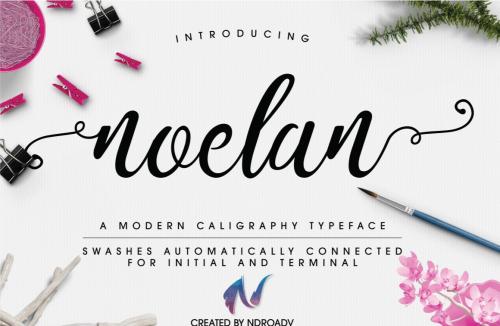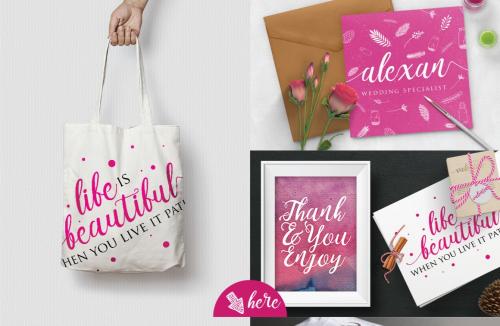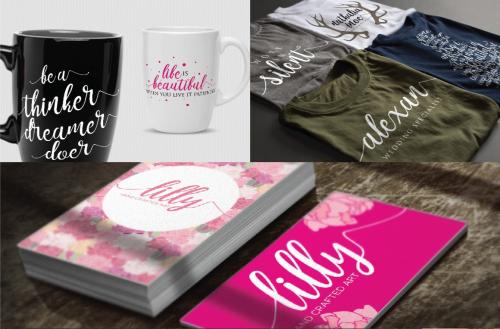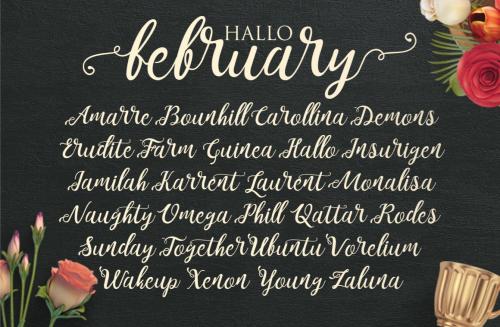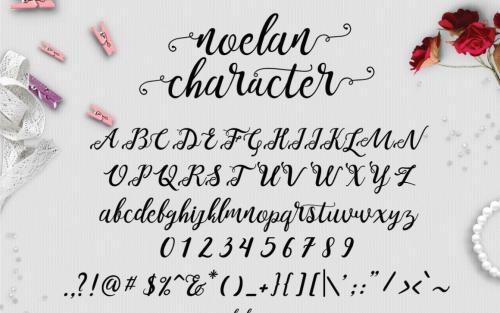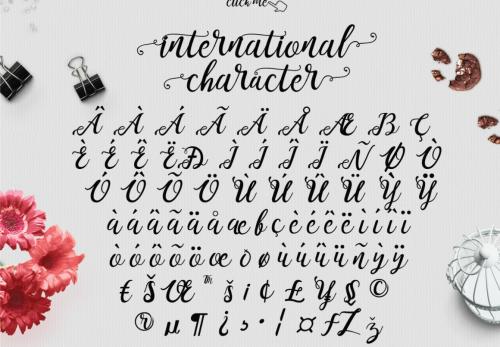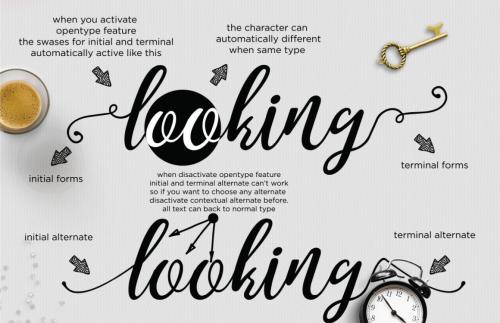
Noel Script was designed by ndro. It features a very clean and modern design. Noelan includes many alternates for easy mixing & matching and also has international characters!
Noelan Script Font calligraphy is a very sophisticated and professional, including uppercase, lowercase, numbers or characters, it expresses the unique calligraphy strokes. Especially it’s free for personal use and commercial, you can freely use it in the works, it would be appropriate for the logo design magazine covers, greeting cards wedding invitations …